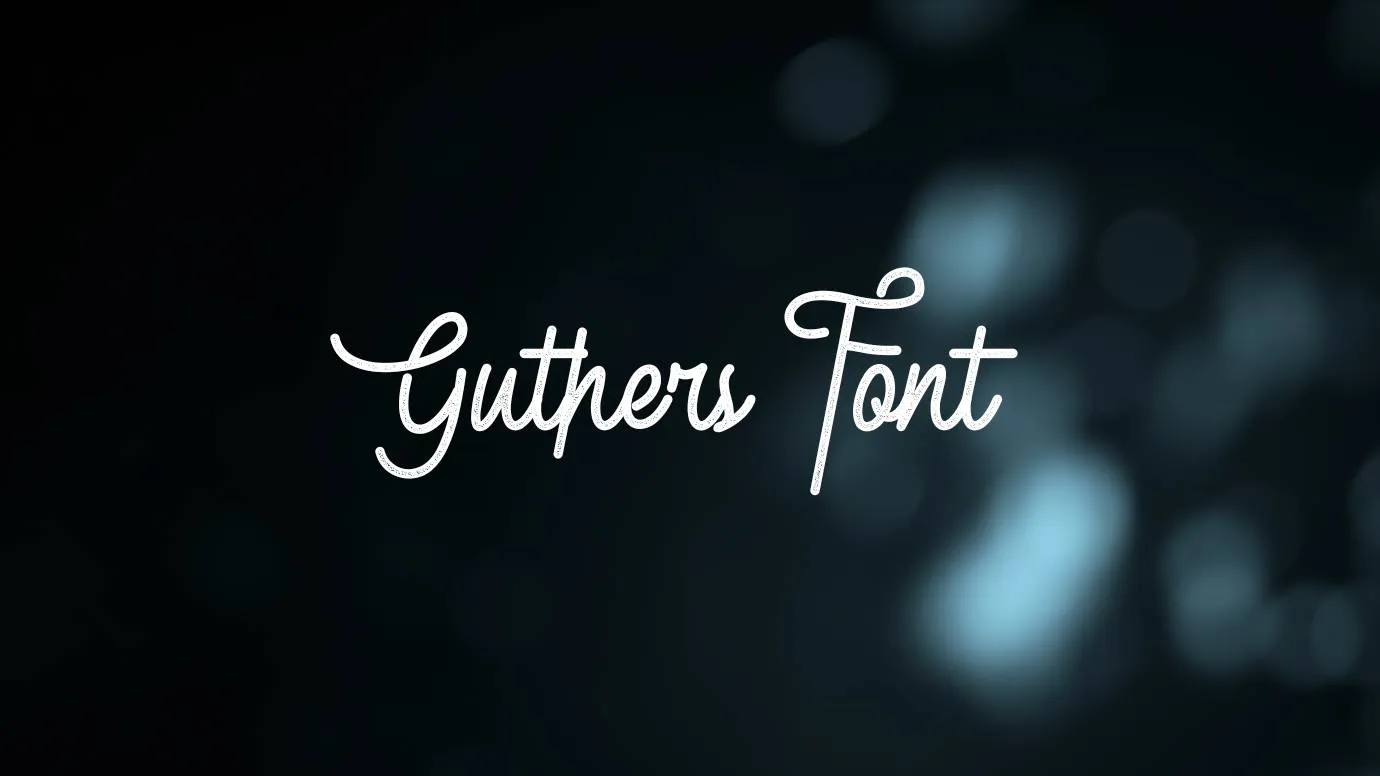
Guthers Font Family is a script-type font. This vintage look font has smooth and bold characters. Ibnu Utomo is the designer of this font and Omotu Studio is the publisher of this amazing typeface.
Guthers Font
NameGuthers Font
DesignerIbnu Utomo